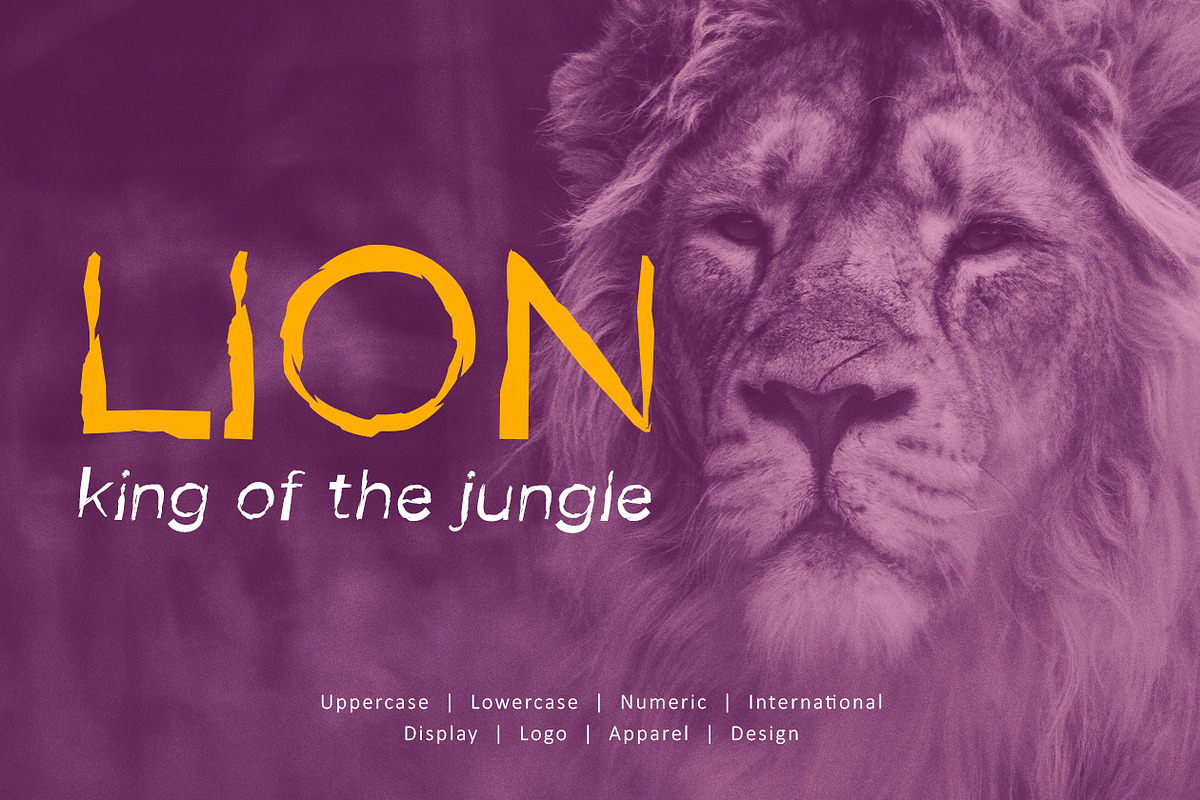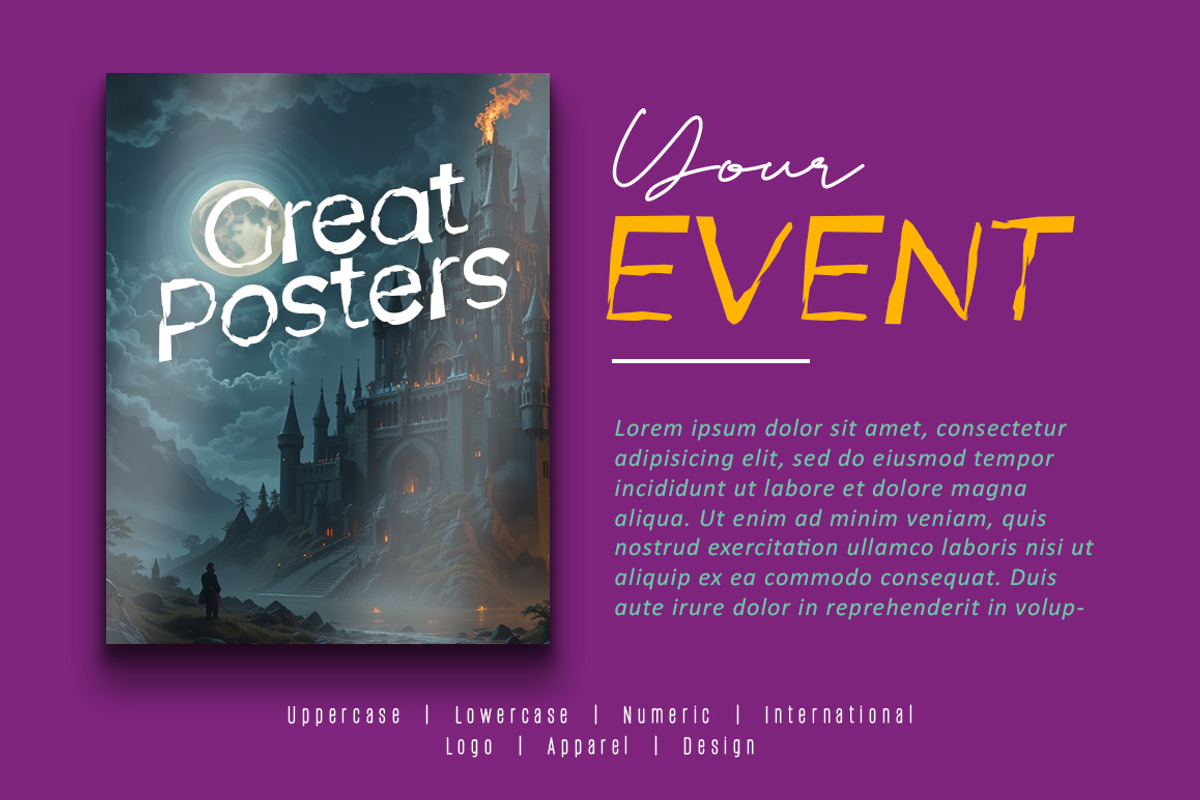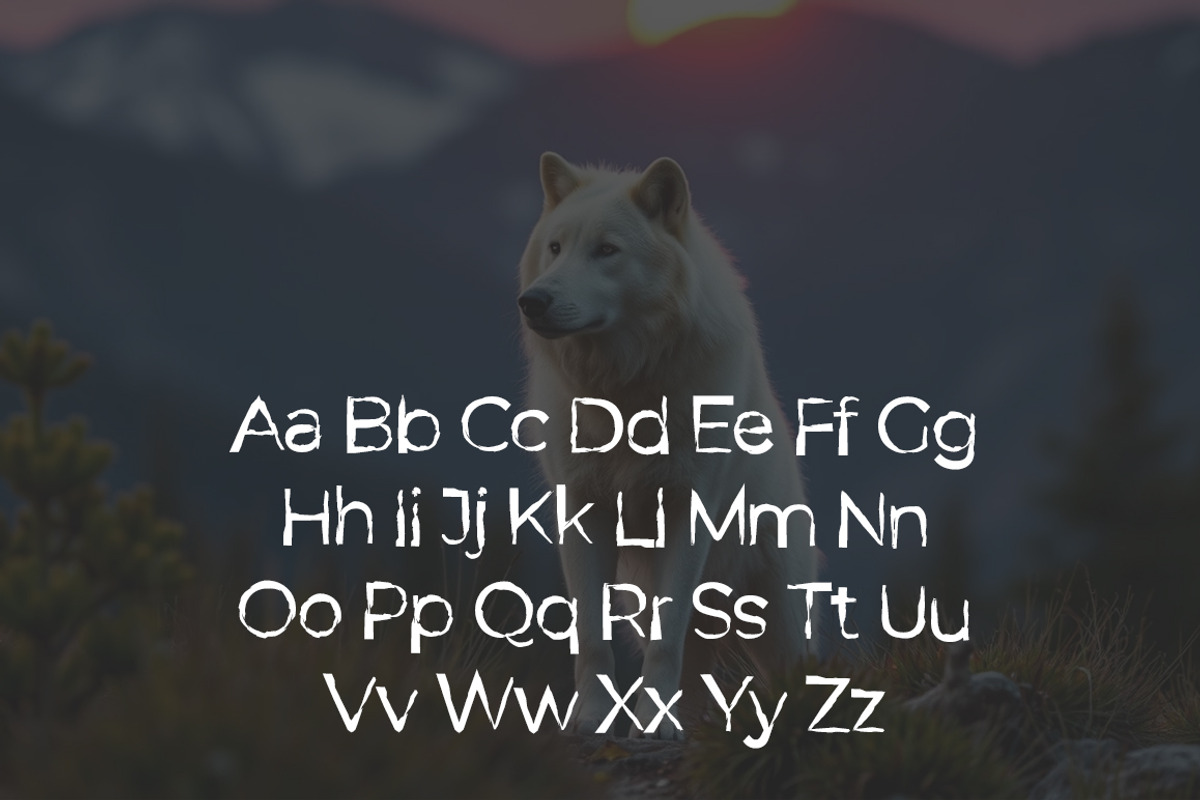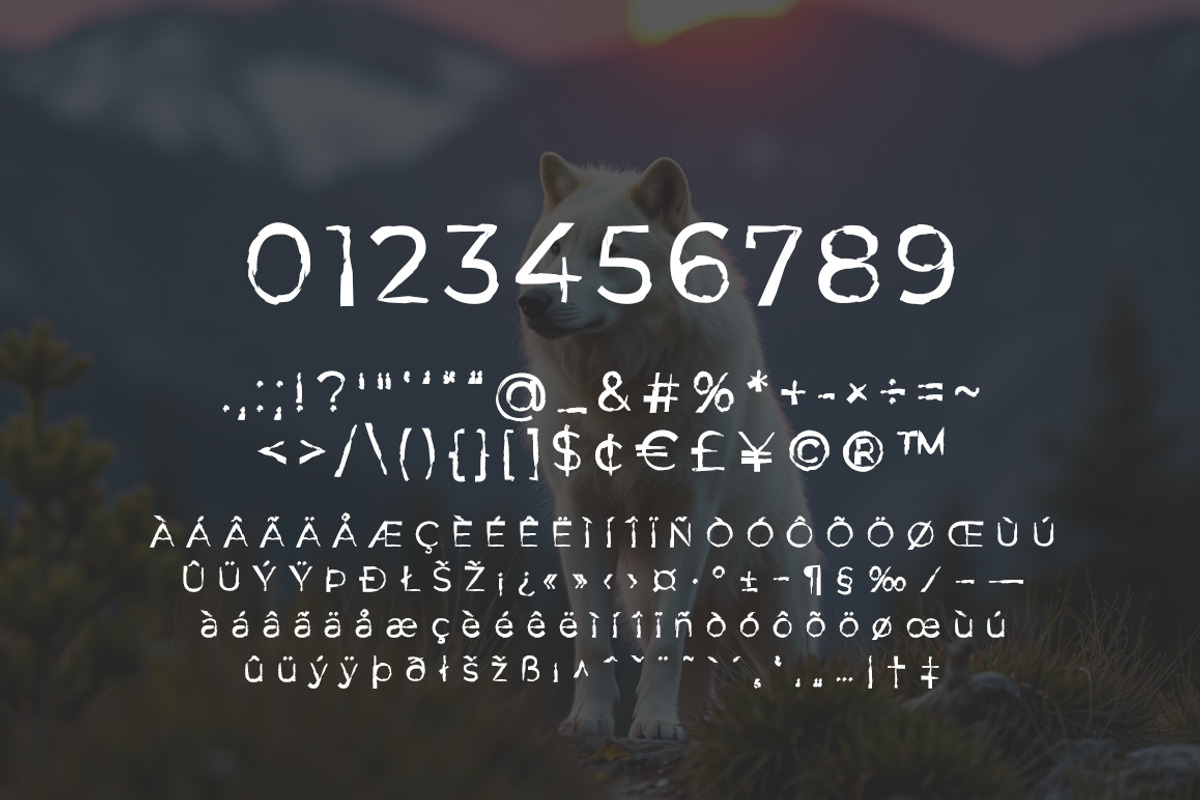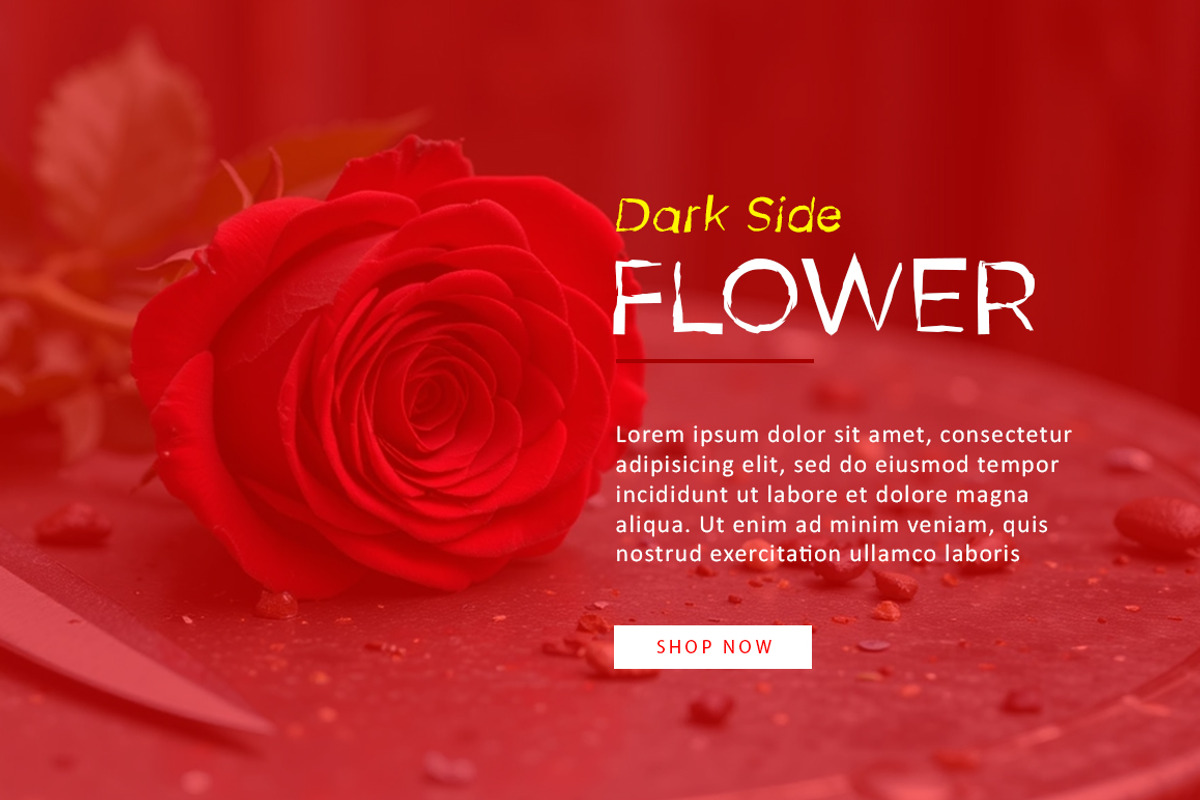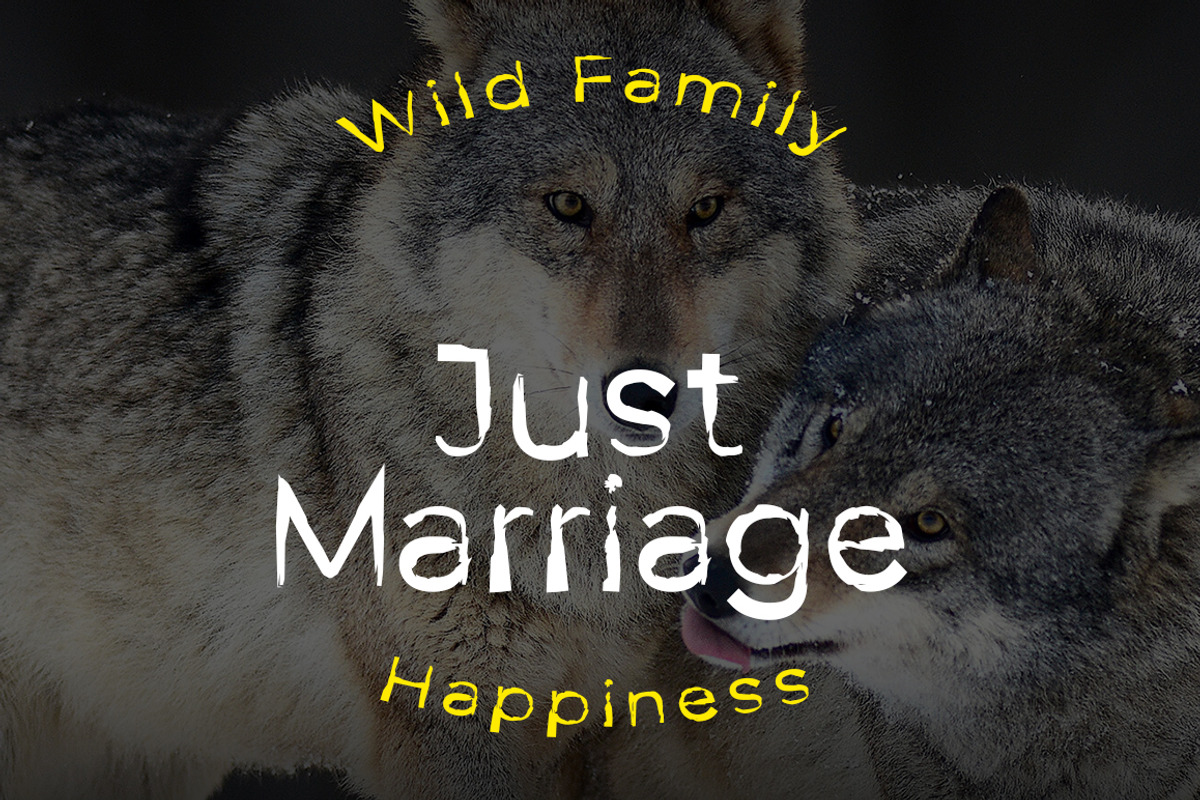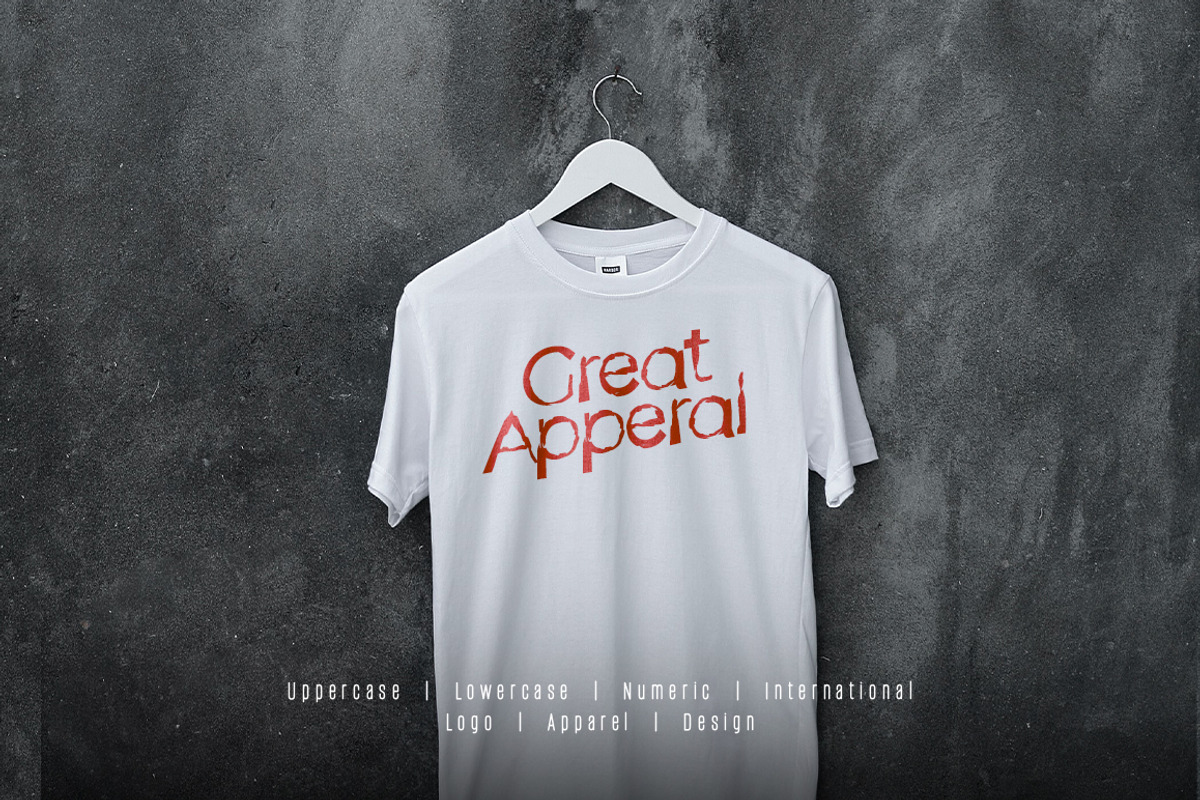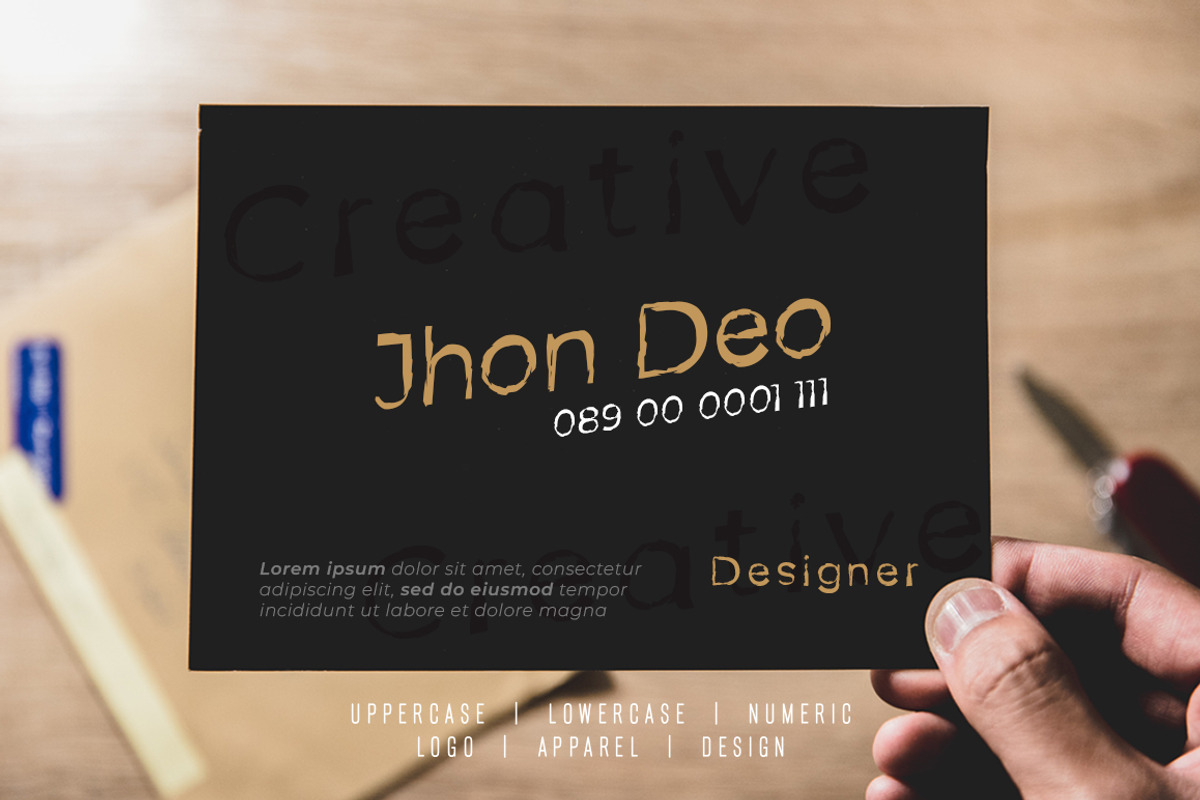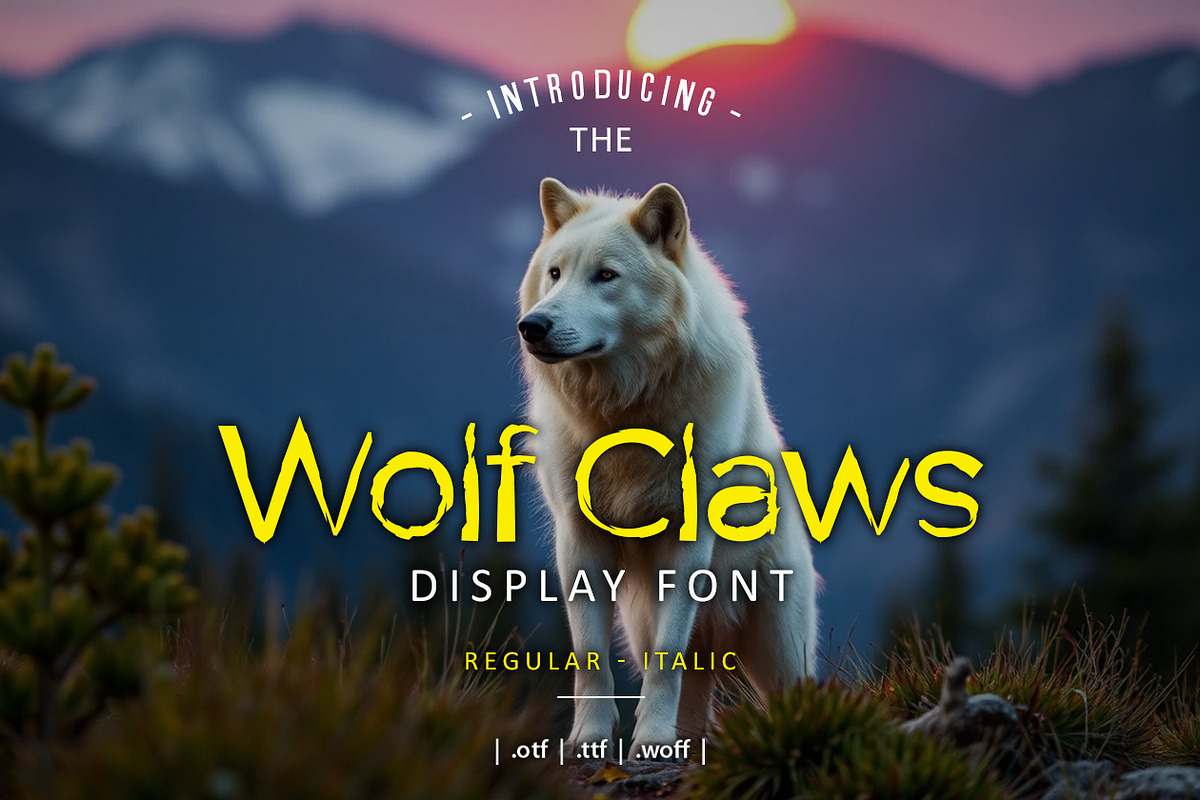
Wolf Claws Font
Wolf Claws Font very suitable for poster, for logo, music cover, clothing, and many many cool design projects. Wolf Claws Font is uppercase, lowercas and numeric.